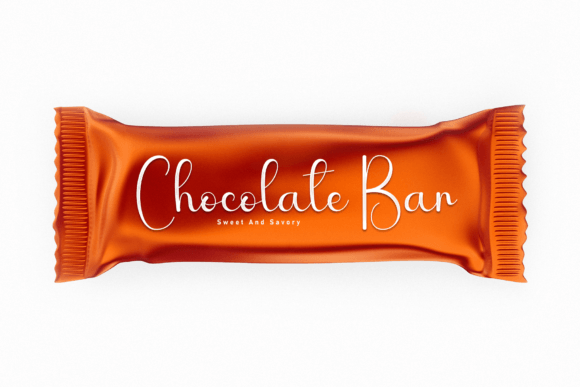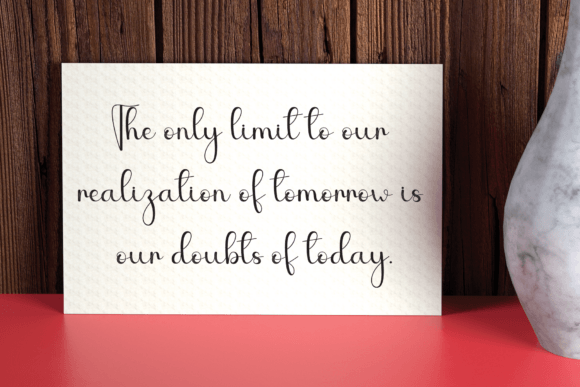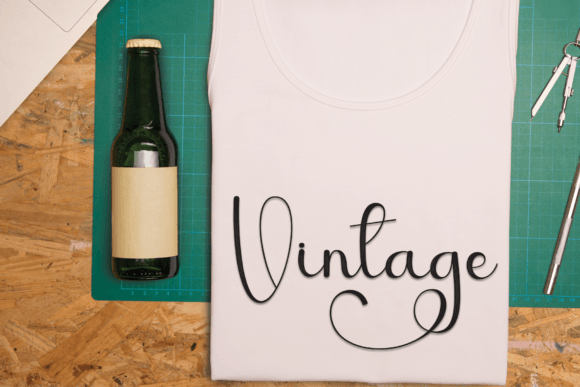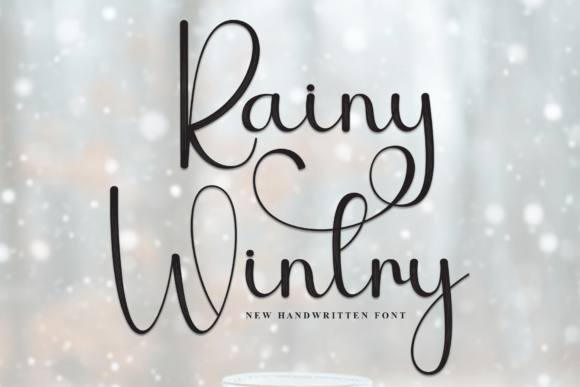
Introduction to Rainy Wintry Font
Rainy Wintry is a stylish handwritten script font that exudes elegance and charm with its flowing, graceful curves.
Perfect for invitations, logos, and branding, it adds a personal and sophisticated touch to any design The font’s delicate strokes bring warmth and creativity to your projects.
Key Features of Rainy Wintry Font
Why Choose Rainy Wintry Font?